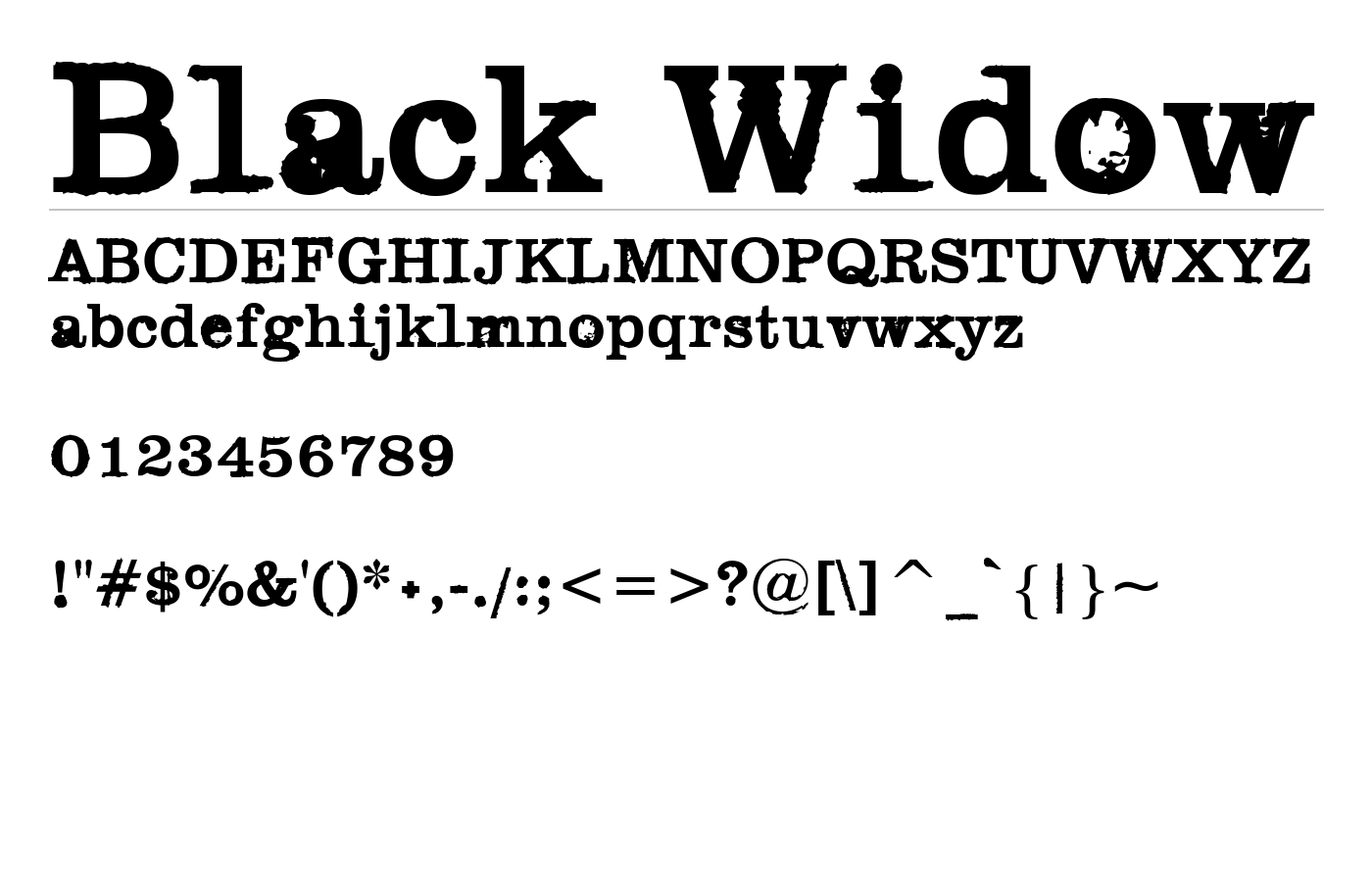
Black Widow is a bold slab serif font with a distressed, grunge texture that gives it a raw and edgy character. Its sturdy, blocky letterforms combined with irregular ink blotches create a vintage, industrial feel that works well for eye-catching headlines, posters, and branding that needs a rugged, rebellious vibe. This font is ideal for projects seeking a strong, impactful presence with a touch of worn, handcrafted authenticity.
Black Widow Font
About Black Widow Font